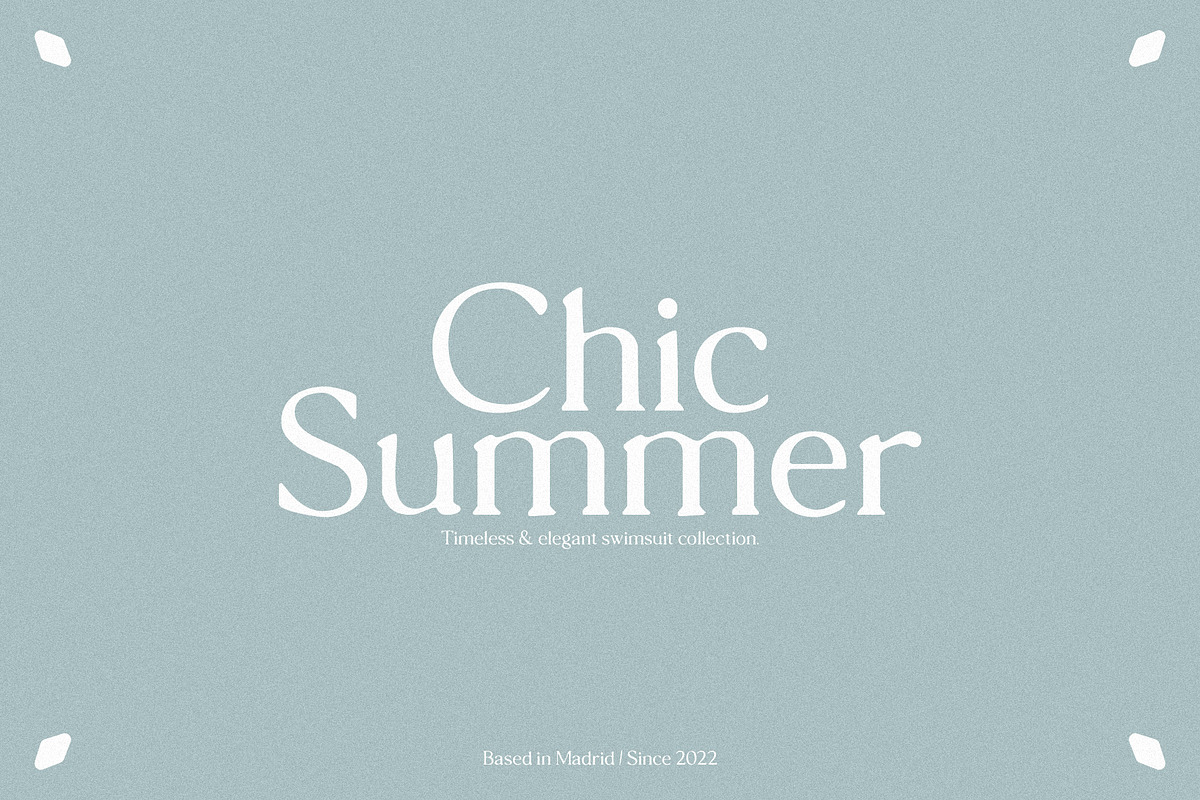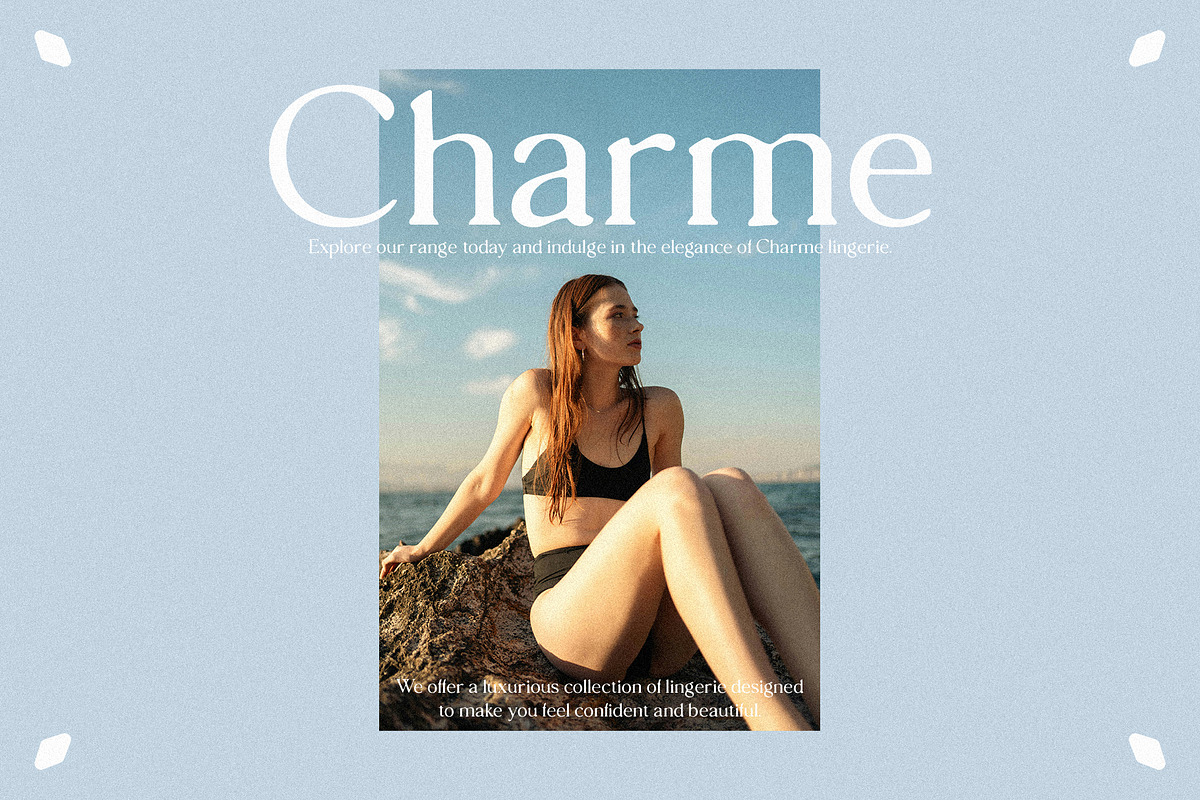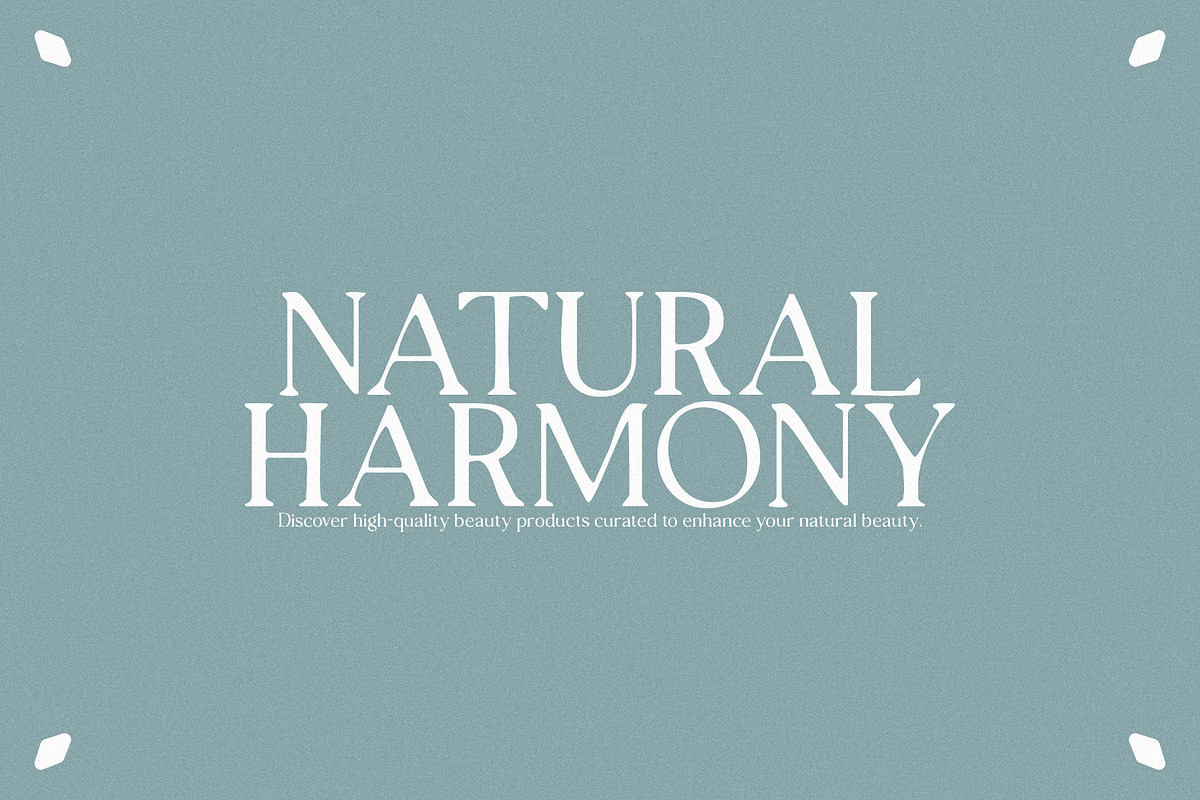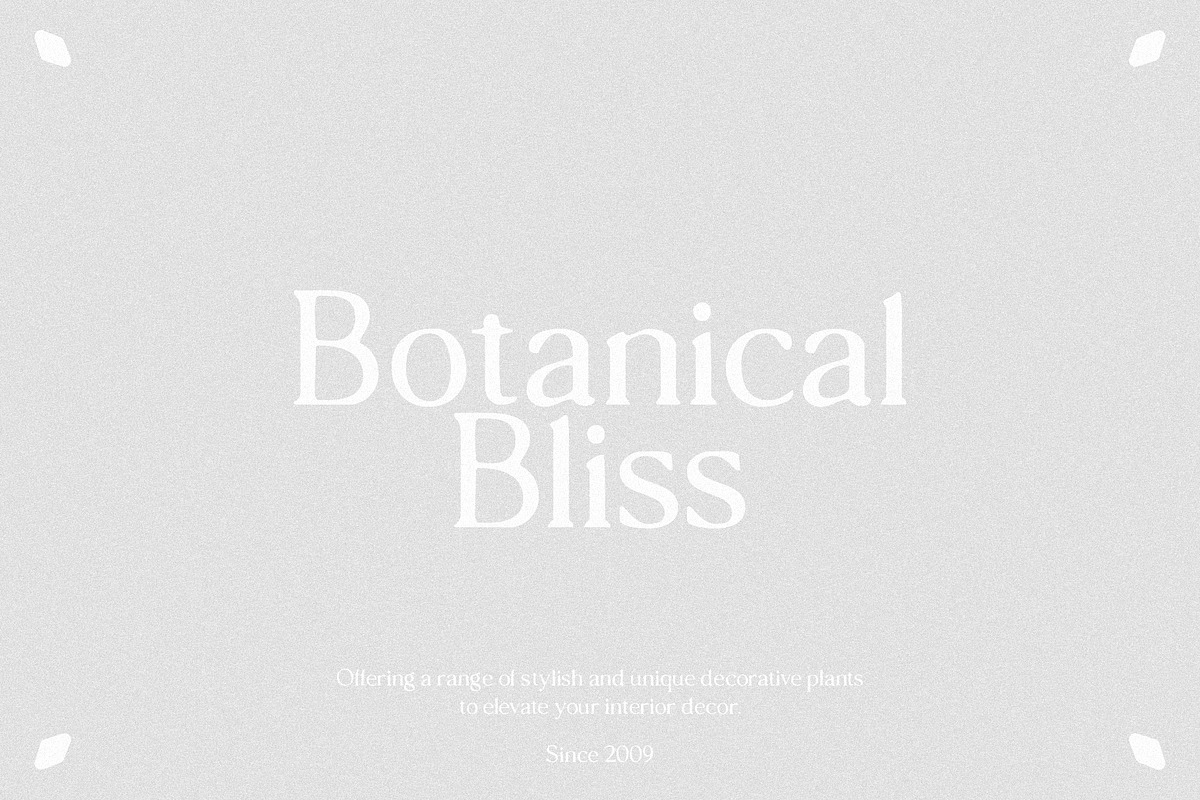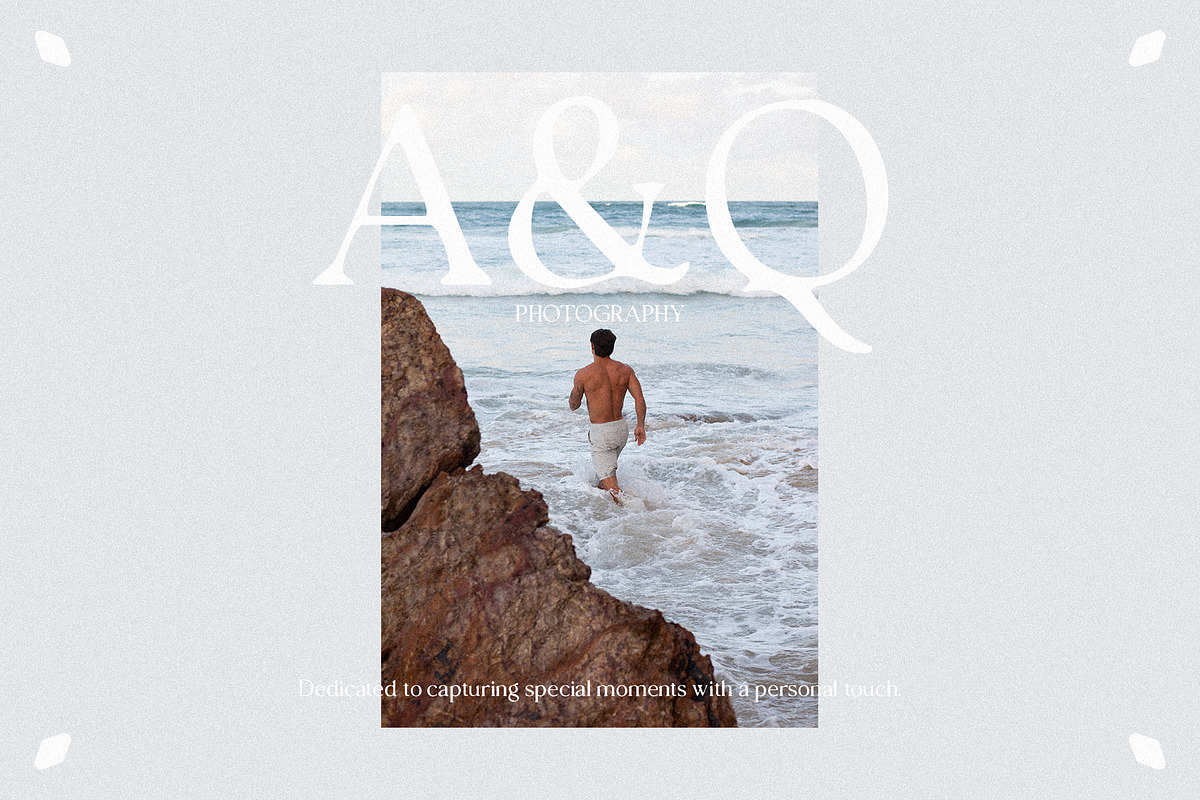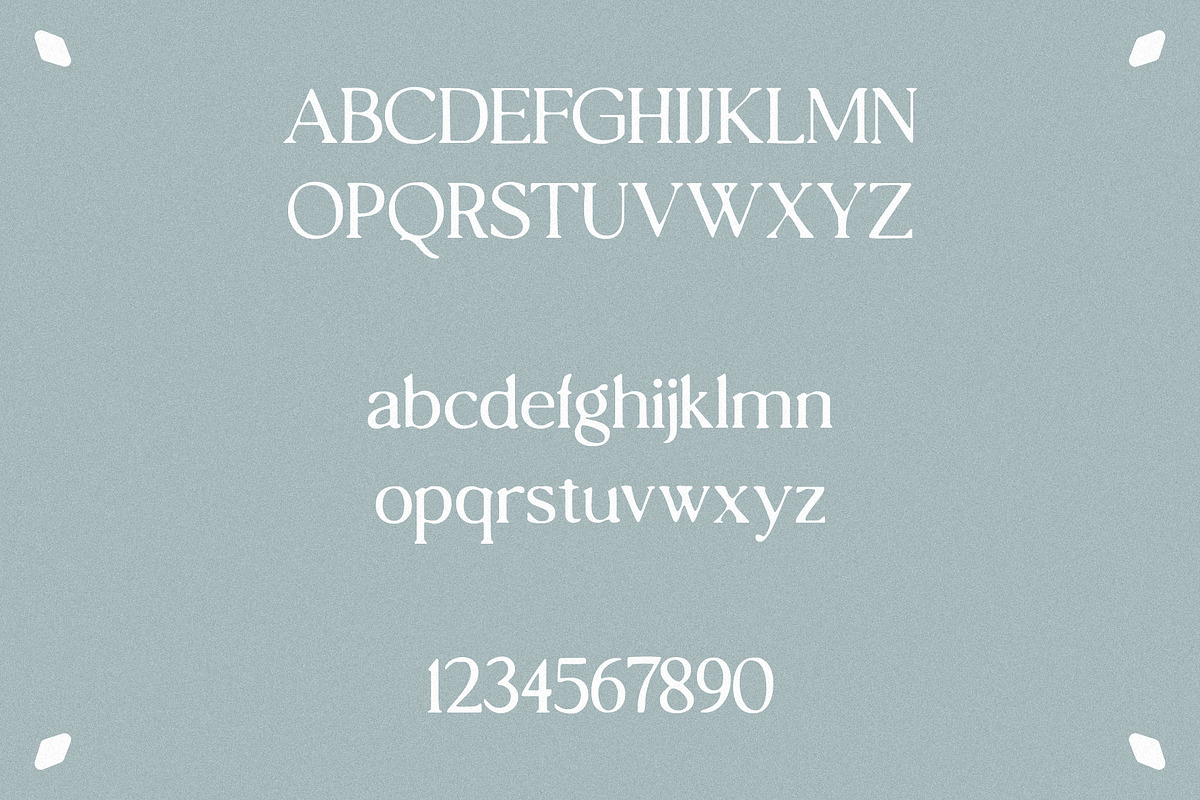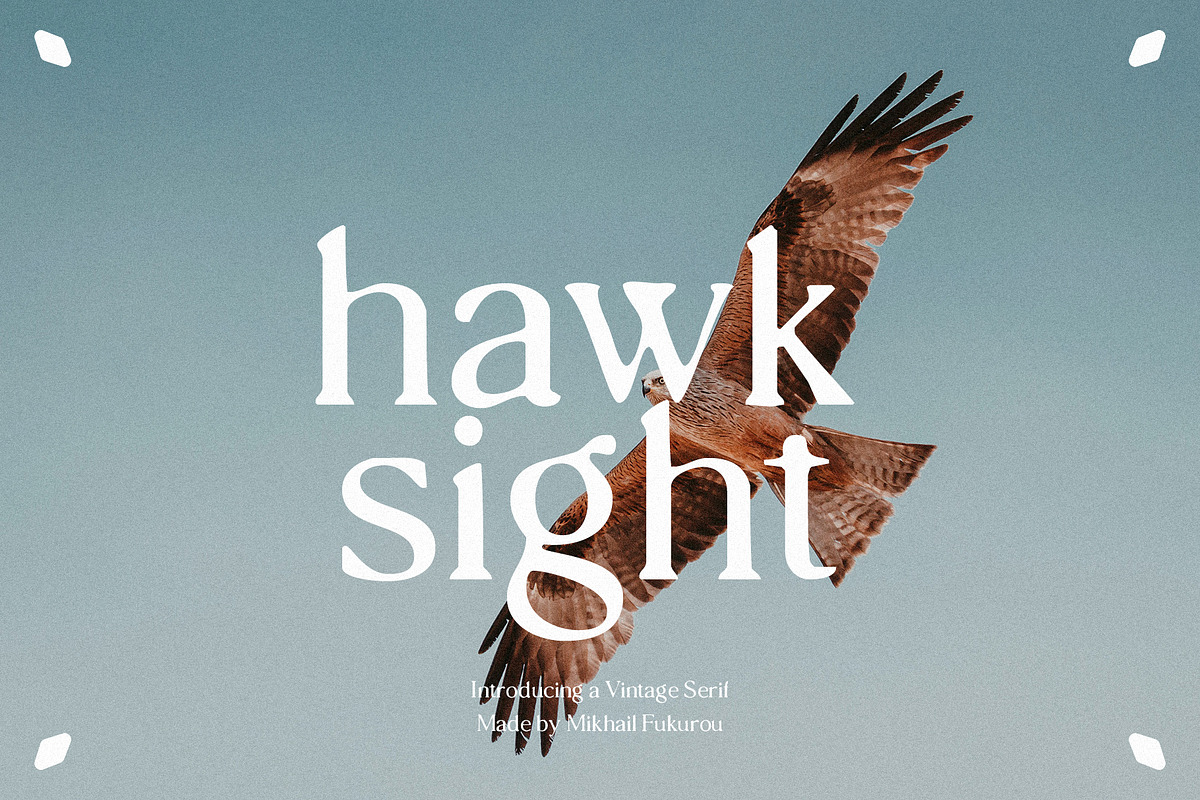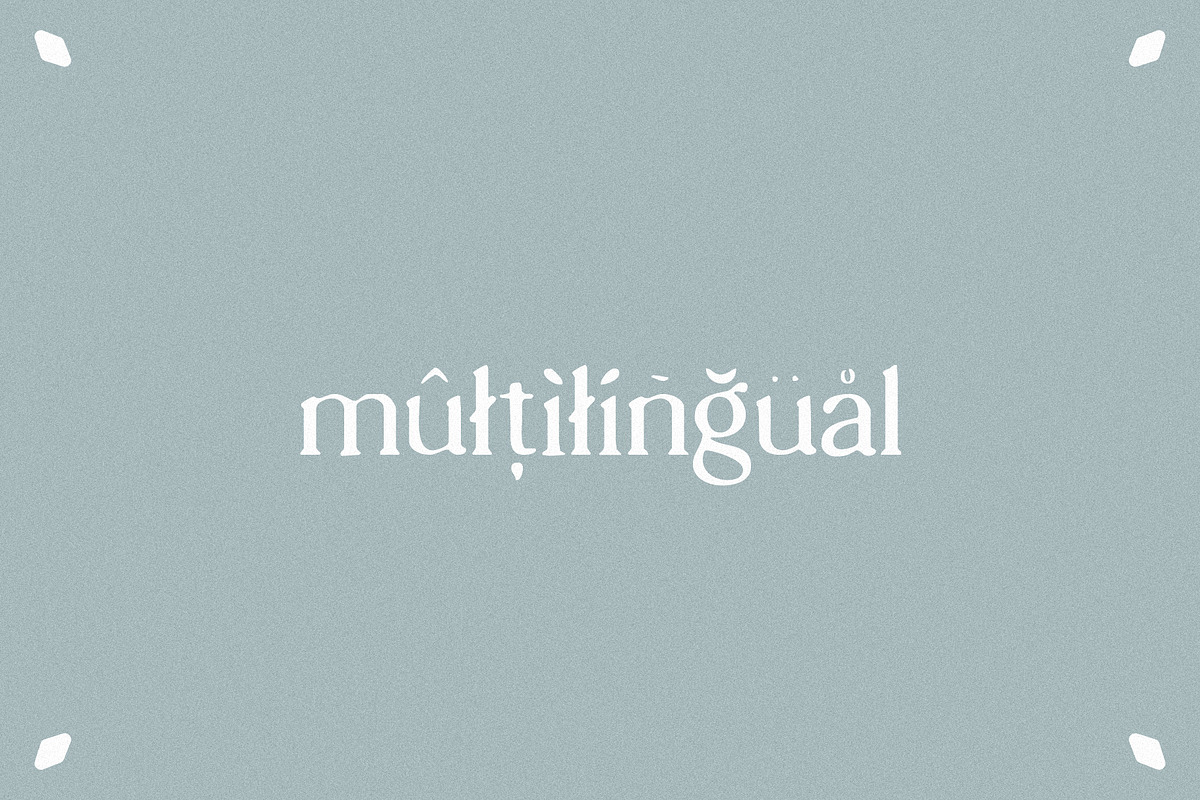
hawk sight - vintage serif
Hawk Sight is a vintage serif font that captures the essence of old-world charm and sophistication. With its classic serifs and elegant design, Hawk Sight adds a touch of nostalgia and timeless appeal to any project. Perfect for vintage-inspired designs, editorial layouts, and branding projects, this font exudes a sense of history and elegance that will elevate your work to new heights.
hawk sight features:
- Letters
- More than 250+ glyphs